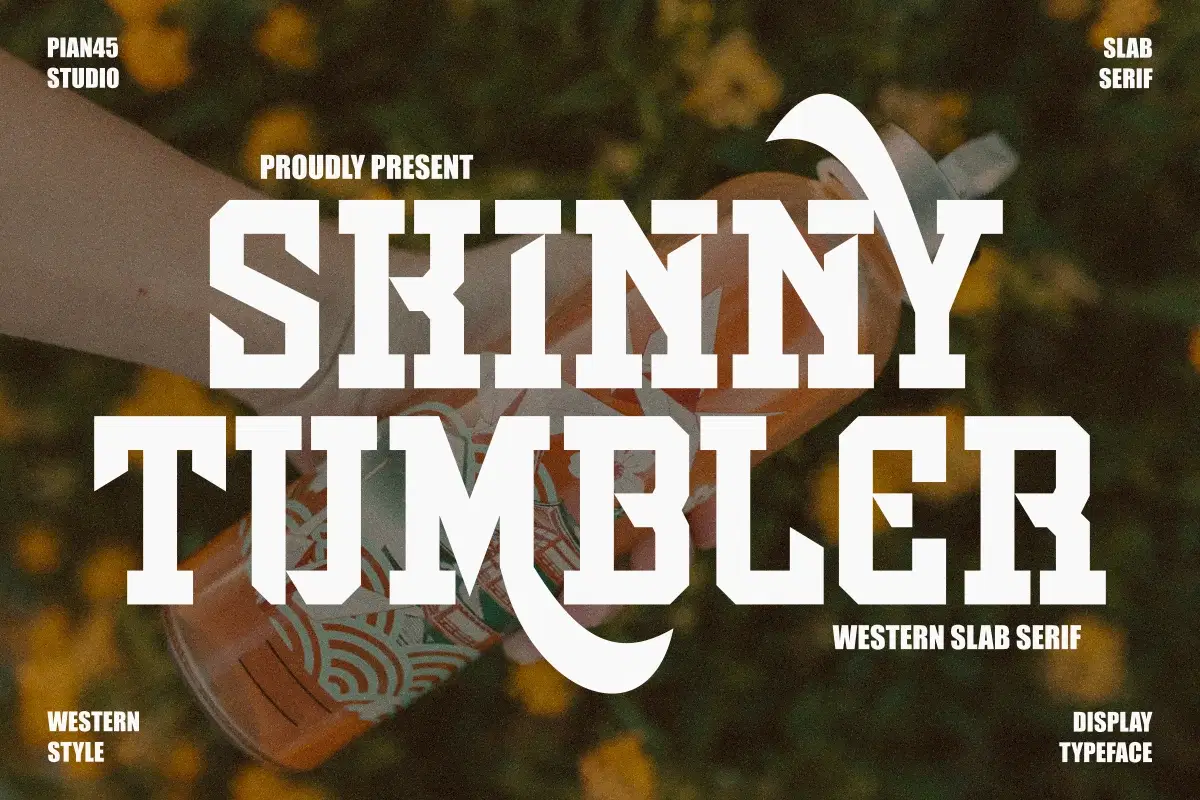
Skinny Tumbler - Western Slab Serif Font
Introducing Skinny Tumbler, a bold western slab serif font that brings a rugged and adventurous spirit to your designs. With its strong geometric shapes and vintage cowboy aesthetic, this font is perfect for logos, posters, apparel, signage, branding projects, and Cricut crafts.
Whether you’re designing for a rustic brand, western-themed project, or bold display headline, Skinny Tumbler delivers timeless character and power in every letter.
🔥 Perfect for: Western logos, badges, packaging, apparel prints, movie titles, and more!